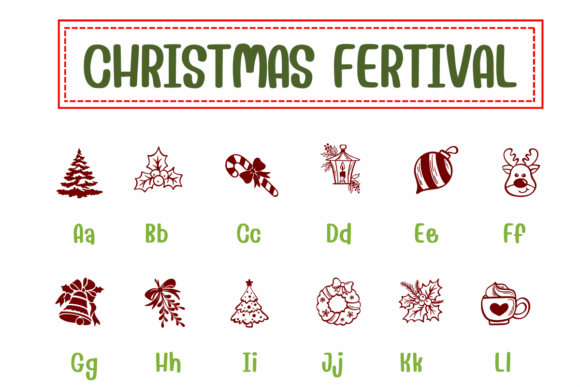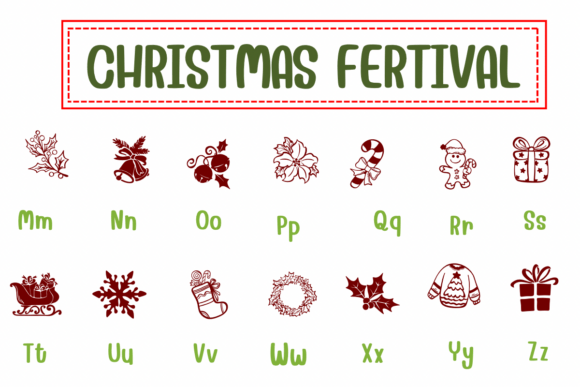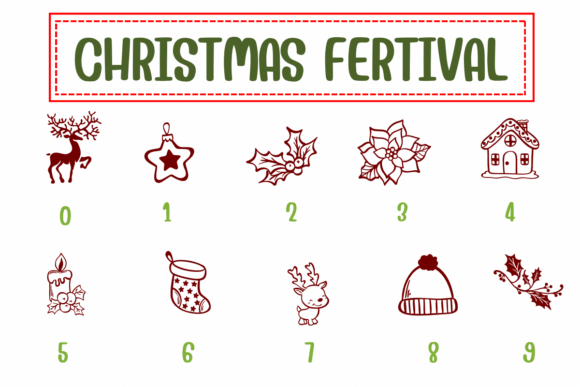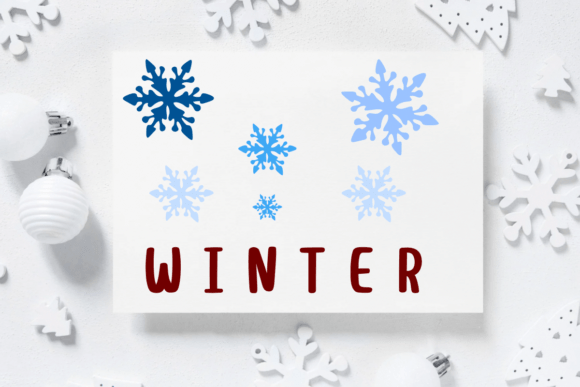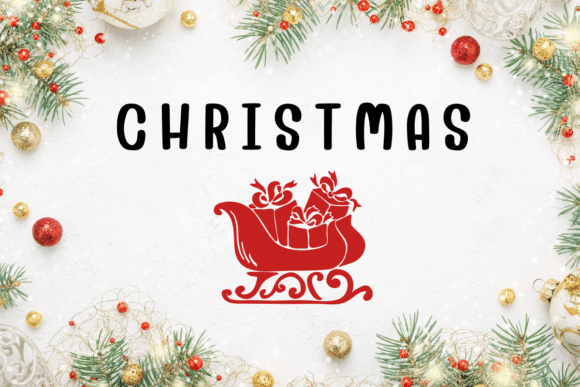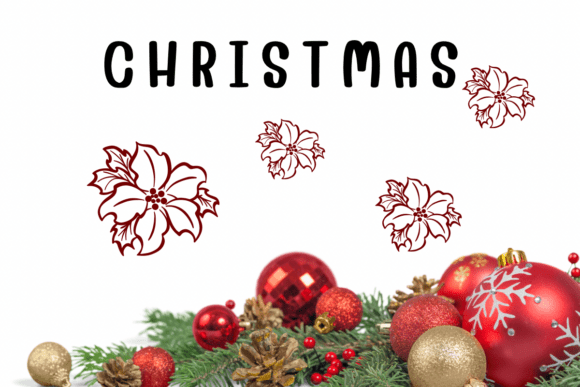
Deck the Halls with Creativity
Do you ever find yourself rummaging through your craft supplies, desperate to find the perfect embellishment for your handmade Christmas cards or decorations? The excitement of the holiday season is upon us, and it’s the perfect time to get creative!
Enter the Christmas Festival Font, a festive dingbats font designed to bring joy and cheer to your projects. This versatile font is more than just a pretty face – it’s a valuable tool for designers looking to add a touch of whimsy to their work. From Christmas cards to DIY crafts, decorations, and logos, the Christmas Festival Font is the perfect companion for anyone looking to make their holiday projects stand out.
Key Features of Christmas Festival Font
- Unique Characteristics: The Christmas Festival Font features festive and elegant lettering, perfect for holiday-themed designs and decorations.
- Font Style: The font has a traditional and classic feel, with intricate details and ornaments, making it ideal for use in invitations, greeting cards, and other holiday-related materials.
Designer Review: Christmas Festival Font
Overall, I think Christmas Festival Font is a great choice for any project that needs a festive touch. ✨ The font’s playful and lively feel makes it perfect for headings and titles. The letterforms are well-designed, and the subtle texture adds a nice organic feel to the font.
One of the things I like about Christmas Festival Font is its versatility. ✨ It can be used in a variety of contexts, from holiday cards and posters to branding and packaging. The font also comes in a range of weights and styles, making it easy to find the perfect fit for your project.
Here are some of the things I like about Christmas Festival Font:
- ✨ Playful and lively feel
- ✨ Well-designed letterforms
- ✨ Subtle texture adds organic feel
- ✨ Versatile and can be used in a variety of contexts
- ✨ Range of weights and styles available
- ⚠️ The font may be too ornate for some projects
- ⚠️ Some of the letterforms may be difficult to read at smaller sizes
- ⚠️ The font may not be suitable for body text
Overall, I think Christmas Festival Font is a great choice for any project that needs a festive touch. While it may have some limitations, the font’s playful and lively feel makes it a great addition to any design project.
The Christmas Festival Font is perfect for:
Creating festive holiday invitations and cards.
Designing holiday-themed social media graphics and ads.
Adding a touch of festive flair to presentations and documents.